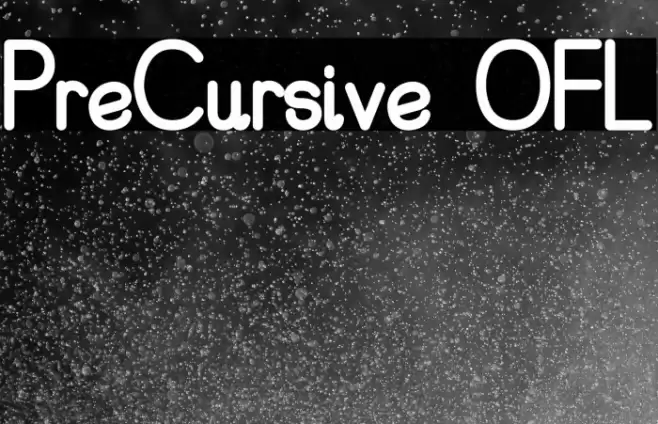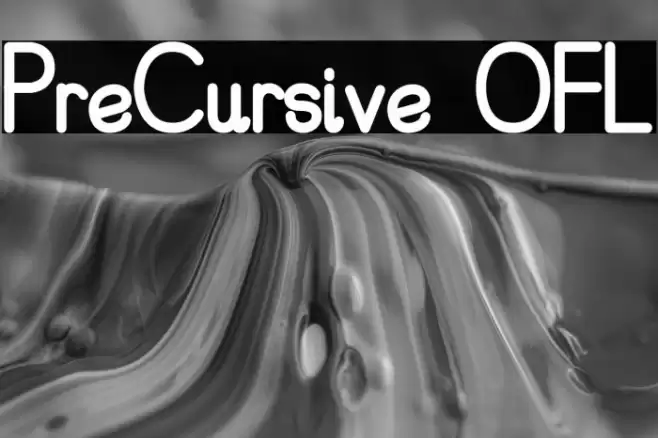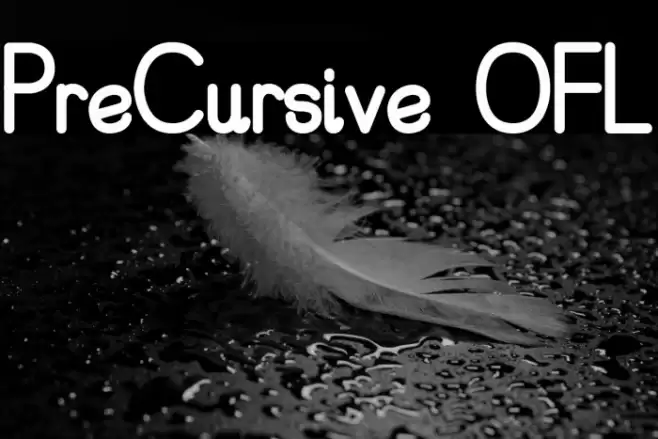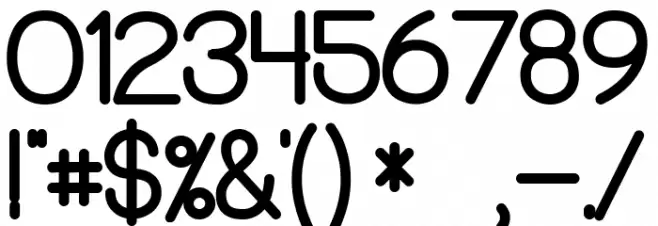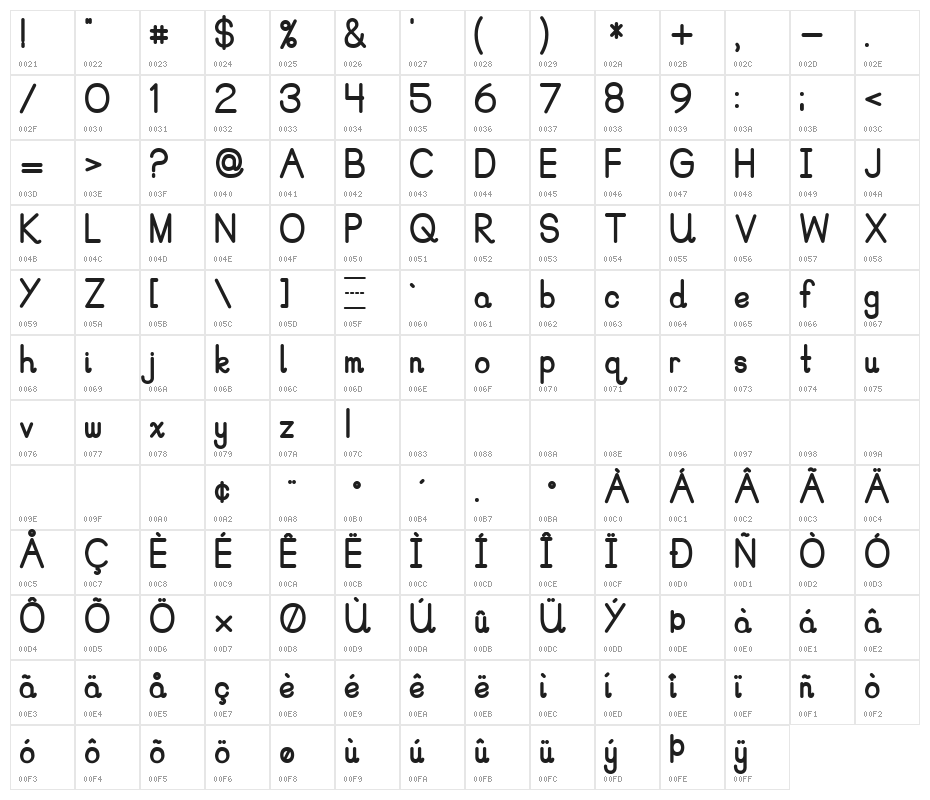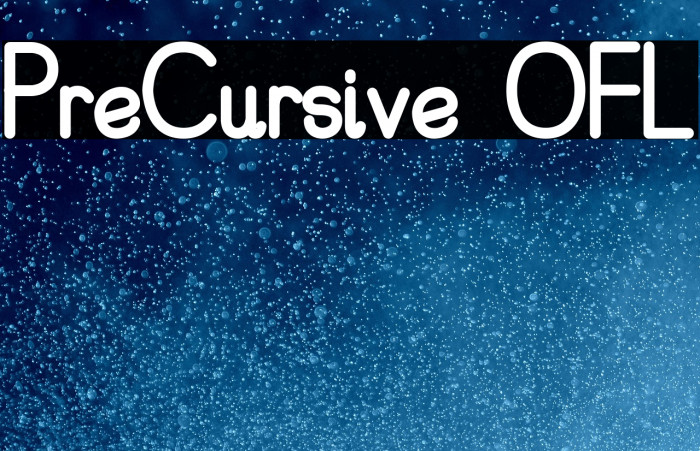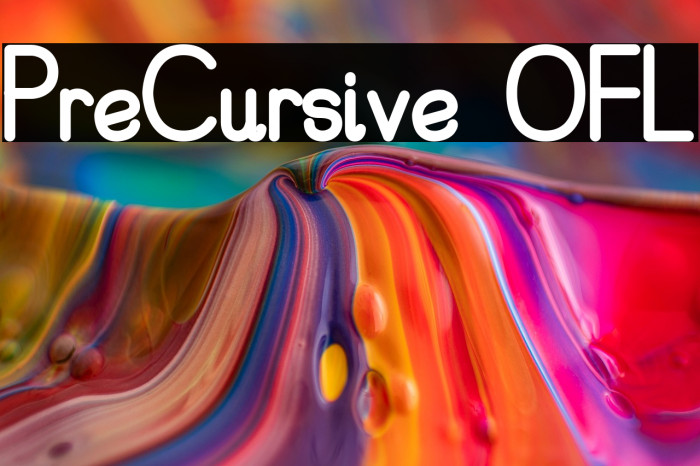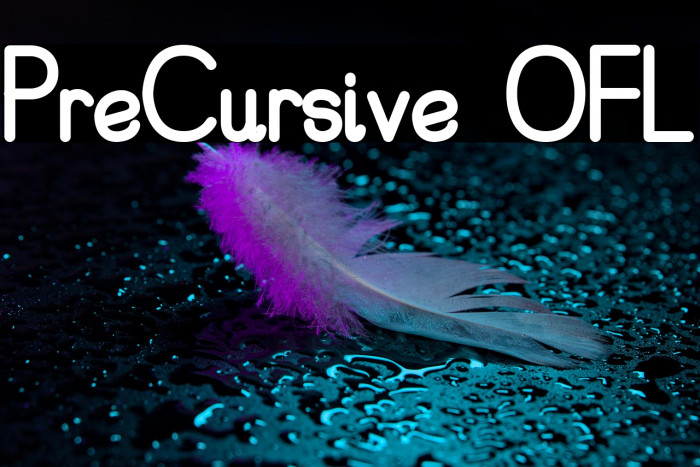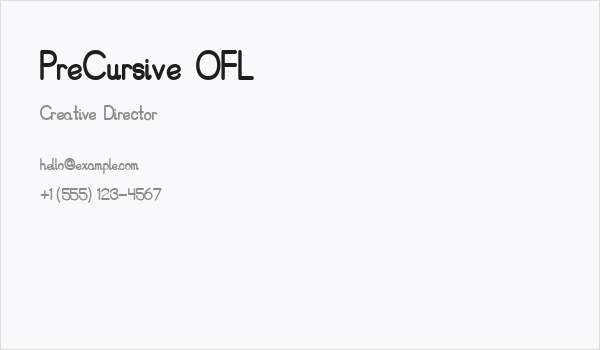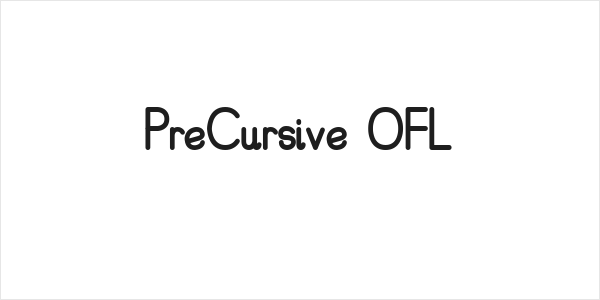
PreCursive OFL Font
PreCursive OFL Description
This font features a playful and rounded style, characterized by its smooth, flowing lines and consistent stroke width. The uppercase letters are bold and prominent, while the lowercase letters maintain a cohesive, cursive-like appearance. The numerals and special characters are designed to match the overall aesthetic, providing a harmonious look across all characters. The font's rounded edges and uniformity make it approachable and friendly, suitable for a variety of informal and creative applications.
A playful, rounded font with smooth, flowing lines and consistent stroke width from Sans Serif fonts.
- Proposed Projects: Ideal for children's books, educational materials, playful branding, and creative design projects.
- Overall Style: Playful
- Use Case: Headlines, Logos, Informal Text